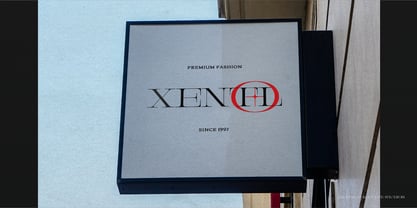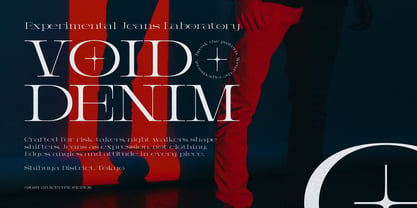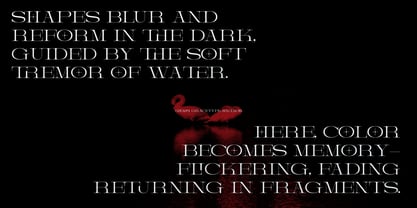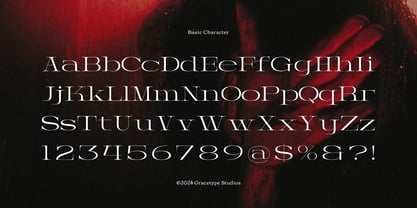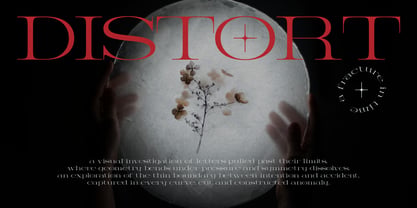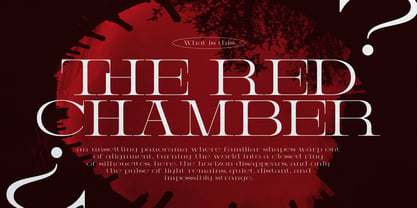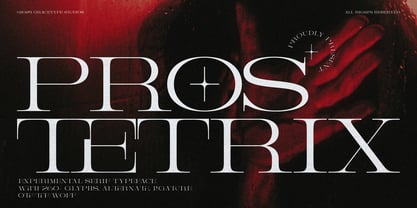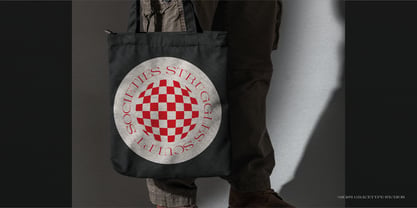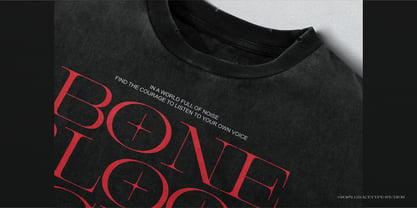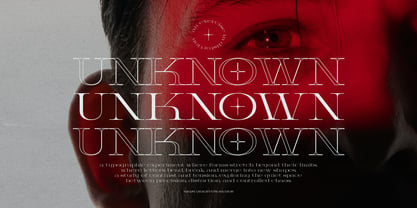
Prostetrix
by Tini Fitriani
Prostetrix | Serif Typeface, from Gracetypestudio, suitable for any projects such as: logos, branding projects, homeware designs, product packaging, mugs, quotes, posters, shopping bags, t-shirts, book covers, name card, invitation cards, greeting cards, label, photography, watermark, special events, and all your other lovely projects that need a Serif taste.